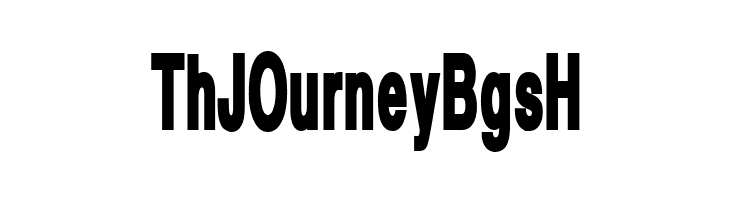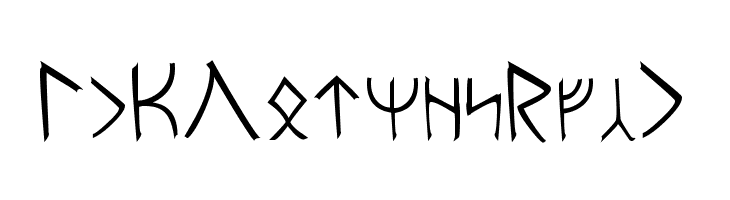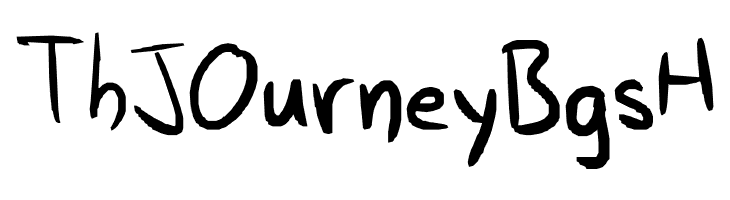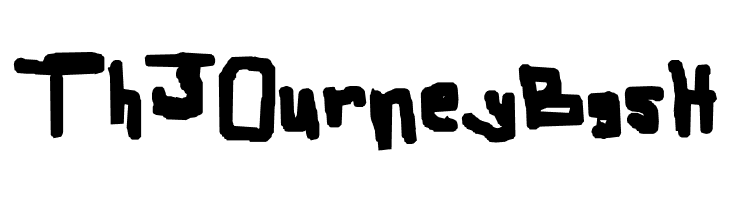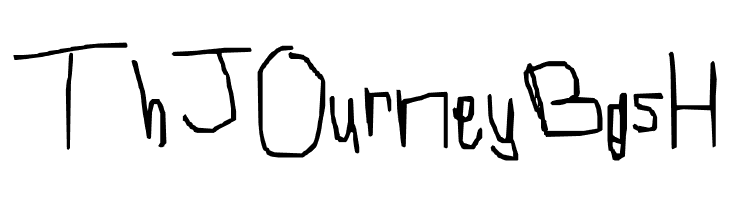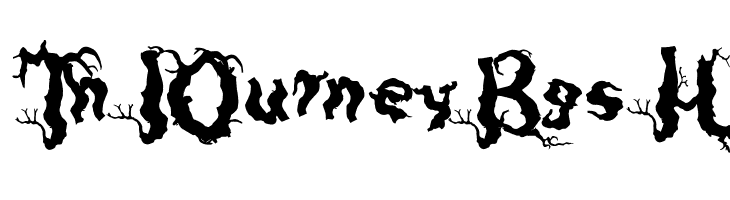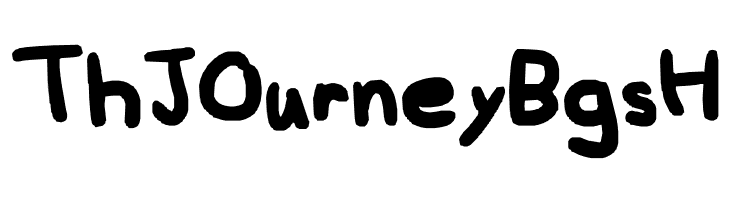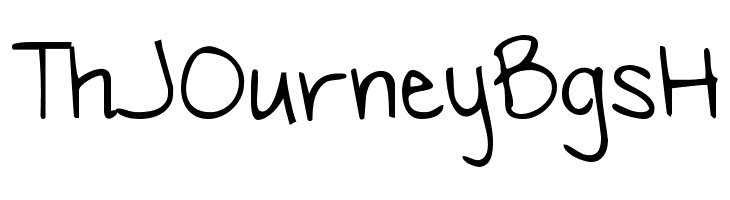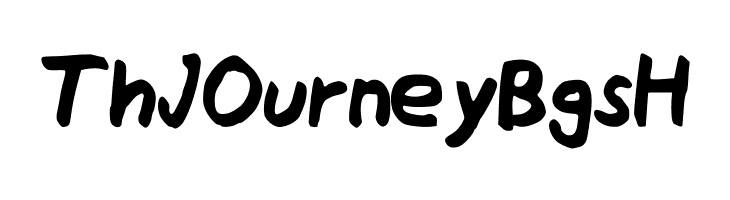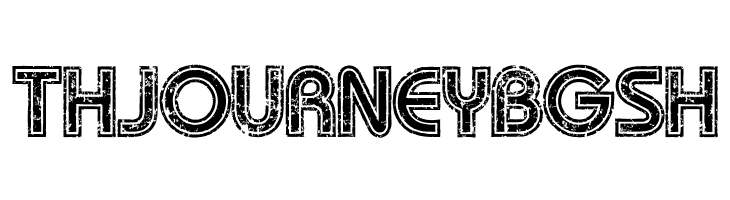
A tall, narrow, and modern font with elongated, thin characters.
An abstract, collage-style decorative font with high visual complexity.
A modern, rounded sans-serif font with a clean and approachable style.
A sleek, italicized font with a modern and dynamic style.
A bold, brush-stroke font with dynamic and artistic flair.
A playful, handwritten font with fluid, connected strokes.
An elegant, calligraphic script font with dramatic swashes and high contrast.
A playful, handwritten font with smooth, flowing lines and a casual style.
A bold, geometric, and abstract font with a modern artistic flair.
A bold, elegant script font with flowing, interconnected characters.
An ornate, illustrated font with each letter framed in a vintage-style square.
A bold, hand-drawn font with textured, shaded characters.
A bold, dynamic font with a 3D comic book style and strong shadow effects.
A serif font with a stippled, hand-drawn outline for a mysterious, playful look.
Bold, distressed hand-drawn display font with rough brush strokes.
A bold, rounded, and playful font with a hand-drawn feel.
A bold, playful 3D font with a cartoonish style and shadow effect.
A bold, 3D italic font with a playful and dynamic style.
A bold, playful, and condensed font with rounded, irregular characters.
A bold, condensed, and italicized font with a dynamic and modern style.
A bold, rounded, and playful font with an expanded width.
A bold, expanded, and italic font with a dynamic and playful style.
A bold, italicized font with rounded, playful characters and a dynamic appearance.
A bold, playful font with a leftward slant and rounded characters.
A bold, playful font with slanted, rounded characters.
A bold, playful font with thick, rounded letters and a whimsical style.
A whimsical font with curly, decorative elements, perfect for magical or fantasy themes.
A bold, hand-drawn font with jagged, energetic outlines.